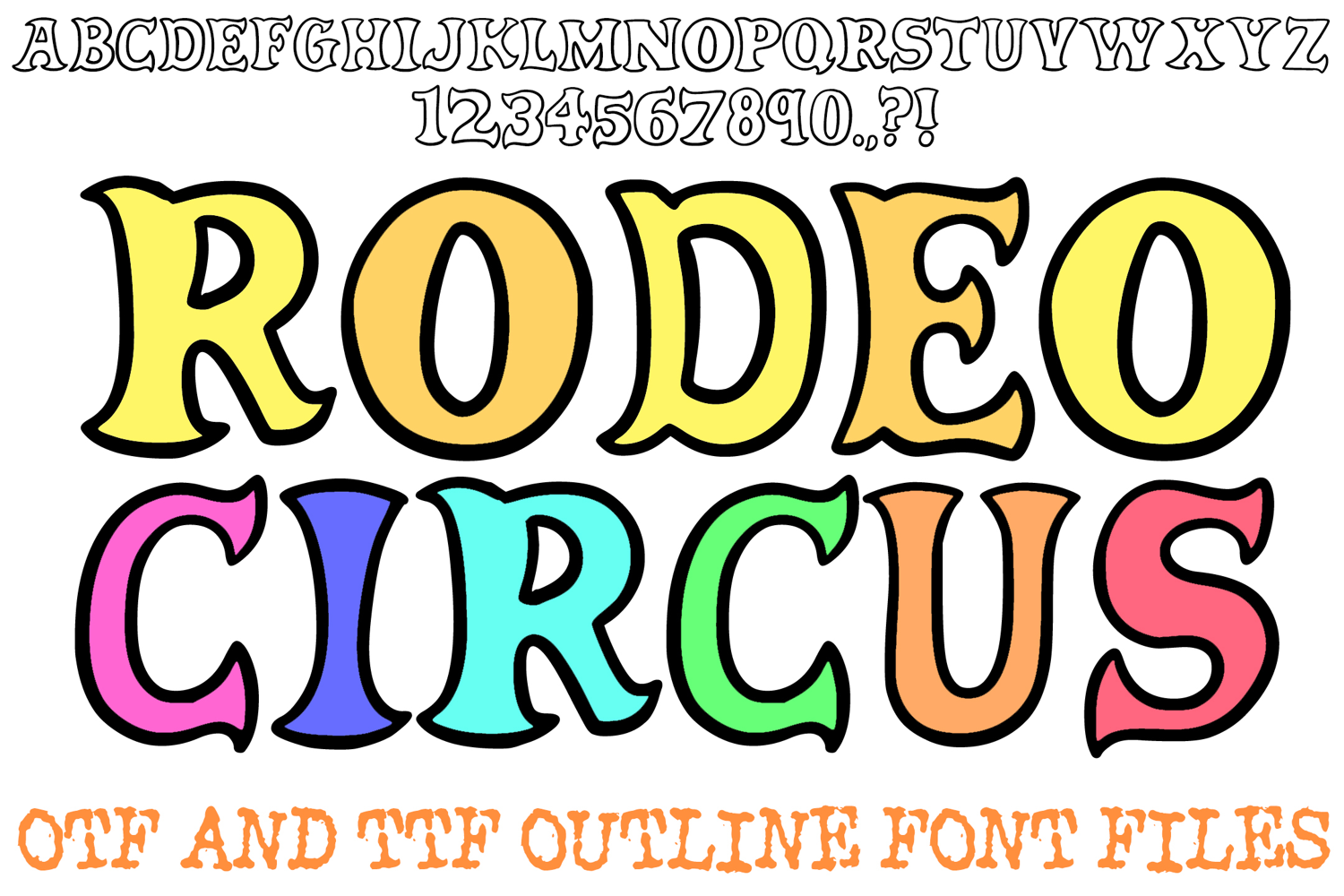
Rodeo Circus Font Carnival Lettering Cartoon Western ABC OTF
Step right up and ride into the sunset with the Rodeo Circus Font! This hand-drawn display alphabet expertly blends the theatrical flair of a vintage circus with the rugged charm of a frontier town. Featuring bold, ornate letterforms with distinctive notches and serifs, it’s the ultimate choice for high-impact posters, retro branding, and any project that needs a touch of old-world character.
The unique "showman" aesthetic of each character ensures your headlines grab attention while maintaining a classic, artisan feel. Whether you're designing for a themed festival, traditional tattoo-style apparel, or rustic event signage, the Rodeo Circus Font delivers a professional, timeless look that stands out.
Ornate Notched Details: Every character features decorative indentations and notches that provide a grand, vintage silhouette.
Bold Serif Structure: The heavy, classic serif style ensures maximum readability for headlines and logos.
Versatile Artisan Feel: The hand-drawn aesthetic gives your text an authentic touch, avoiding the stiffness of standard digital fonts.